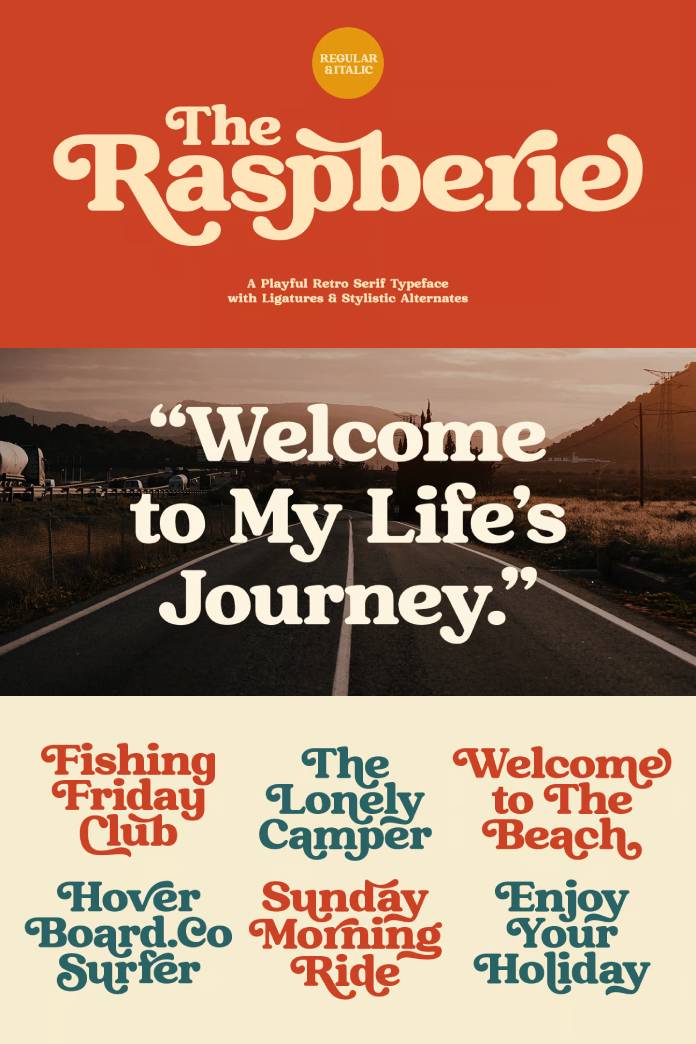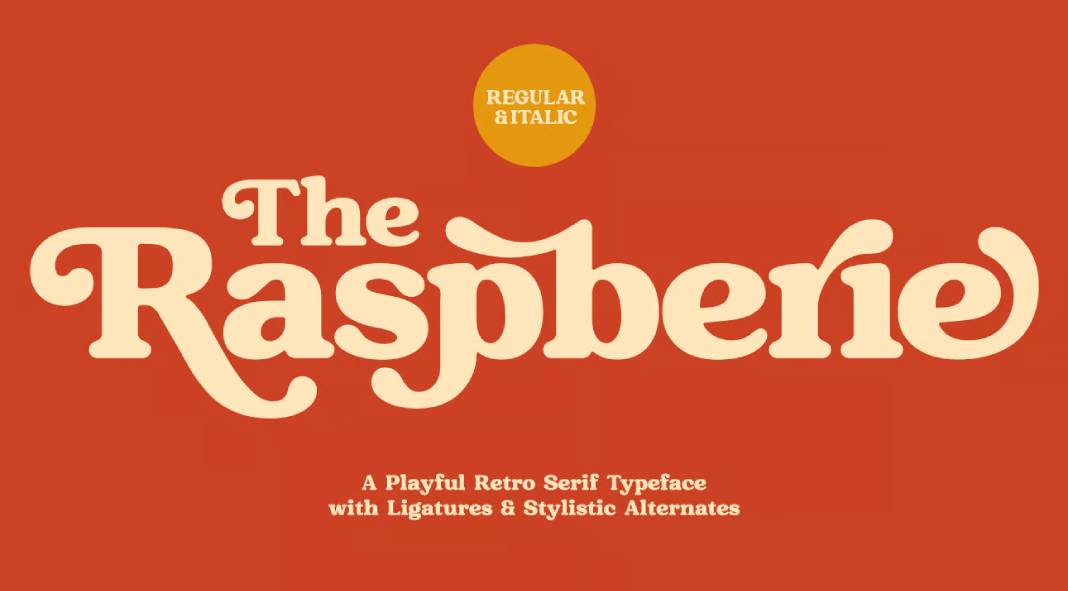
A Nostalgic Journey to the 90s: Raspberie Font Review.
As a self-proclaimed aficionado of all things nostalgic, I eagerly delved into the world of the Raspberie font by Variatype, a typeface brimming with promises of classic retro design. Designed with love and passion, this font truly pays homage to the aesthetics of the 90s, offering a delightful trip down memory lane.
One of the standout features of Raspberie is its versatility. With a large scoop of media applications, including poster design, graphic design, logotype, packaging design, and branding, it is no doubt a valuable addition to any designer’s toolkit. This adaptability ensures that it can be used in various projects, allowing for a seamless blend of different design themes.
The font’s substantial character set is impressive, boasting more than 300 glyphs, 98 stylistic alternates, and 23 ligatures. This abundance of design options empowers creative professionals to craft an array of styles, resulting in a genuinely playful and retro look. It’s a treasure trove for designers seeking to experiment and find the perfect visual expression for their projects.
Raspberie is a perfect tribute to the 90s with its regular and italic styles. The regular style encapsulates the essence of the decade, while the italic adds a dash of variation for those seeking a slightly different aesthetic. Both styles maintain the retro vibe without feeling overdone or clichéd.
While Raspberie undeniably embodies the 90s spirit, its adherence to that specific era might be seen as a limitation for certain contemporary design projects. As with any nostalgic font, there is a risk of it being pigeonholed into a specific niche.
In conclusion, the Raspberie font by Variatype delivers on its promises of a carefully designed 90s-inspired typeface that exudes love and passion. Its extensive character set and stylistic alternates cater to playful design ideas, offering a wealth of creative opportunities. For designers working on projects within the retro theme, Raspberie is a powerful asset. However, while it may not suit every modern context, its authenticity and charm make it a valuable addition to any designer’s toolkit.